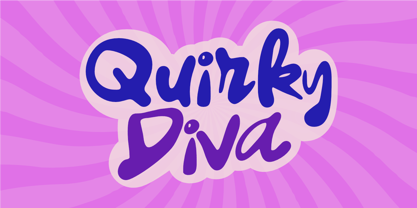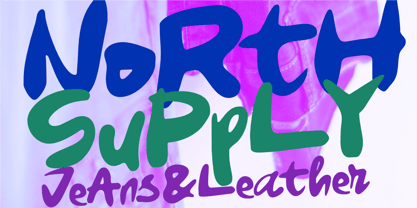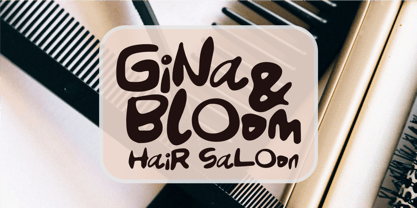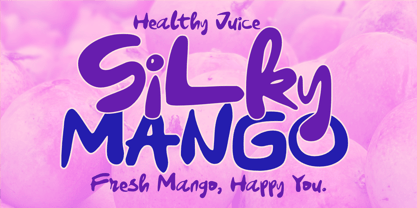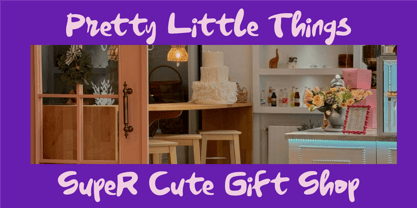
Quirky diva
La famille de polices Quirky diva a été conçue par Nurul Hidayani et publiée par Olivetype. Quirky diva contient 1 styles. En savoir plus sur cette famille
Quirky Diva is a bold, playful handwritten font with a fun and confident personality. Its chunky letterforms, expressive shapes, and slightly quirky details create a cheerful, eye-catching look that feels both stylish and effortlessly fun.
Perfect for fashion branding, beauty products, boutiques, lifestyle brands, packaging, social media graphics, posters, stickers, greeting cards, apparel, invitations, and creative logos, Quirky Diva adds personality to every word.
From “Pretty Little Things” to “Darling, You’re Fabulous!”, this font is made for designs that want to stand out with a little sass and a lot of charm.